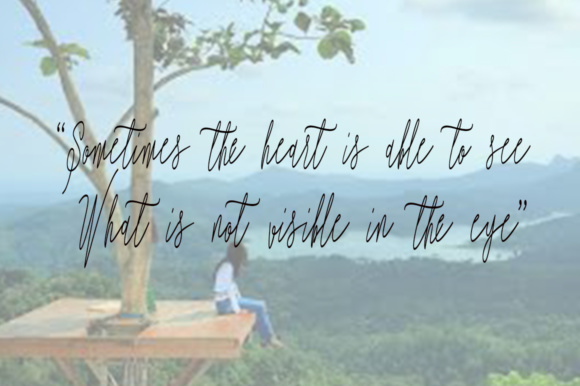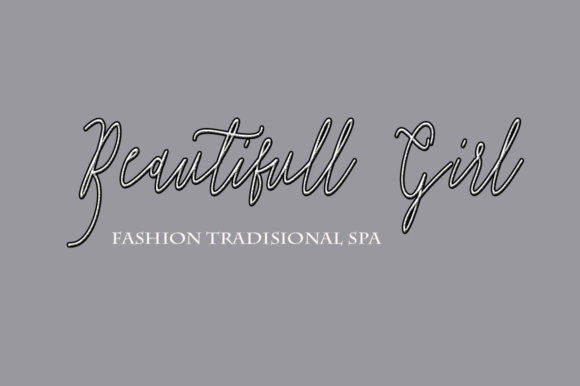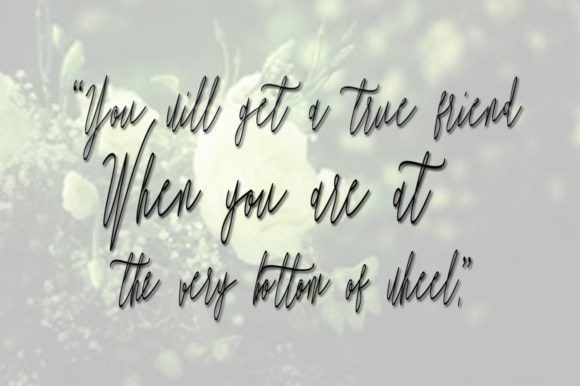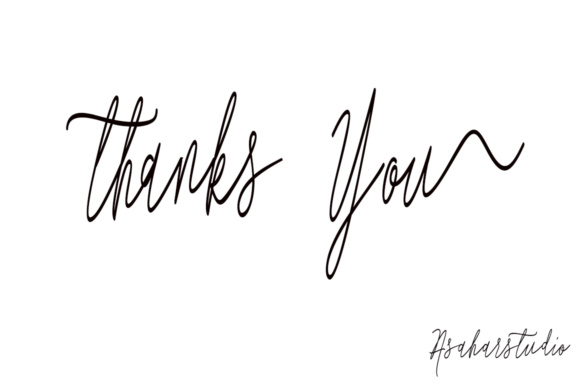
Introducing Gerlivtey Font: A Modern Calligraphy Typeface with a Touch of Elegance
Are you a designer or crafter looking for a font that combines the classic style of calligraphy with a modern twist? Look no further than Gerlivtey Font. This lovely modern calligraphy typeface is perfect for adding a touch of elegance and sophistication to your designs.
What is Gerlivtey Font?
Gerlivtey Font is a modern calligraphy typeface that brings together the best of classic calligraphy and modern style. It features a dancing baseline, which gives it a unique and elegant feel. The font is perfect for use in a variety of design projects, from wedding invitations and stationery to branding and advertising.
Characteristics of Gerlivtey Font
Gerlivtey Font has several characteristics that make it stand out from other fonts. Some of its key features include:
- Modern Calligraphy Style: Gerlivtey Font combines the classic style of calligraphy with a modern twist, making it perfect for designers who want to add a touch of elegance to their designs.
- Dancing Baseline: The font features a dancing baseline, which gives it a unique and elegant feel. The dancing baseline adds a touch of movement and fluidity to the font, making it perfect for use in designs where you want to convey a sense of sophistication and style.
- Highly Legible: Despite its elegant and cursive style, Gerlivtey Font is highly legible, making it perfect for use in a variety of design projects, from body text to headings.
- Versatile: Gerlivtey Font is a versatile font that can be used in a variety of design projects, from wedding invitations and stationery to branding and advertising.
Uses of Gerlivtey Font
Gerlivtey Font is a versatile font that can be used in a variety of design projects. Some of the most popular uses of the font include:
- Wedding Invitations and Stationery: Gerlivtey Font is perfect for use in wedding invitations, stationery, and other wedding-related design projects. Its elegant and sophisticated style makes it perfect for conveying the joy and happiness of a wedding.
- Branding and Advertising: The font is also perfect for use in branding and advertising projects. Its modern and elegant style makes it perfect for use in logos, advertisements, and other marketing materials.
- Signage and Display: Gerlivtey Font can also be used in signage and display projects, such as store signs, billboards, and exhibition displays.
Why Choose Gerlivtey Font?
There are many reasons why you should choose Gerlivtey Font for your design projects. Some of the benefits of using the font include:
- Unique and Elegant Style: Gerlivtey Font has a unique and elegant style that will add a touch of sophistication to your designs.
- Highly Legible: The font is highly legible, making it perfect for use in a variety of design projects.
- Versatile: Gerlivtey Font is a versatile font that can be used in a variety of design projects.
Gerlivtey Font is a lovely modern calligraphy typeface that combines the classic style of calligraphy with a modern twist. Its dancing baseline and elegant style make it perfect for use in a variety of design projects, from wedding invitations and stationery to branding and advertising. With its highly legible and versatile style, Gerlivtey Font is a great choice for designers and crafters who want to add a touch of elegance and sophistication to their designs.